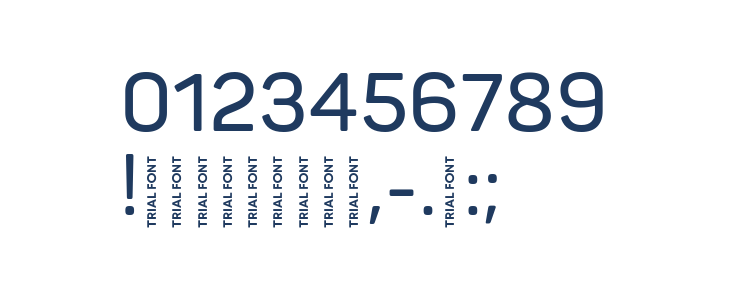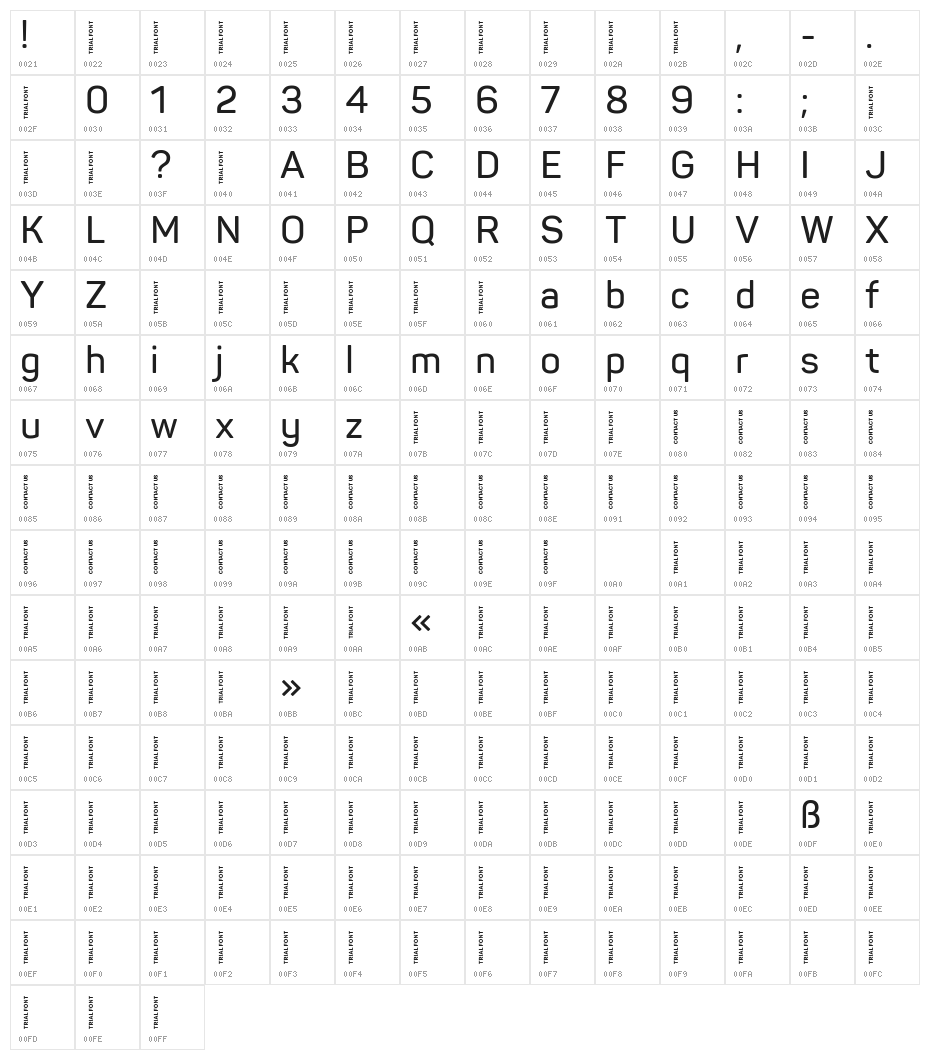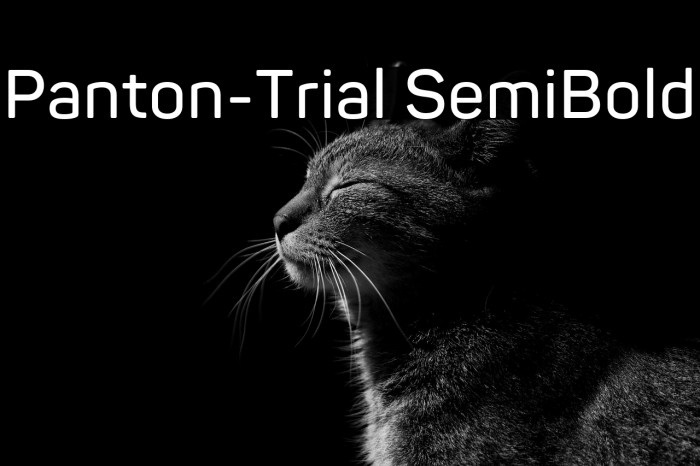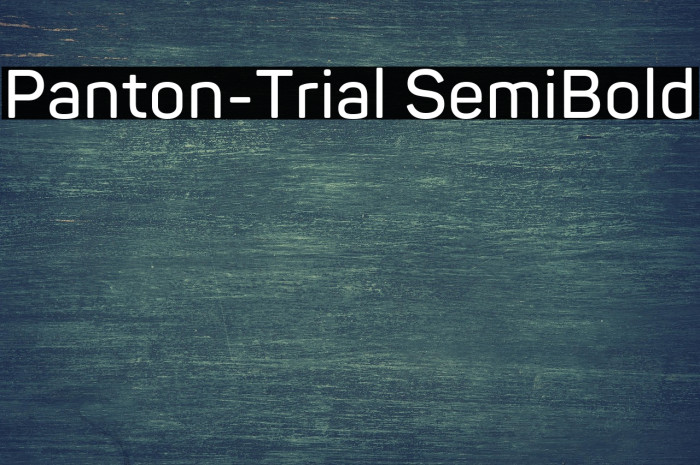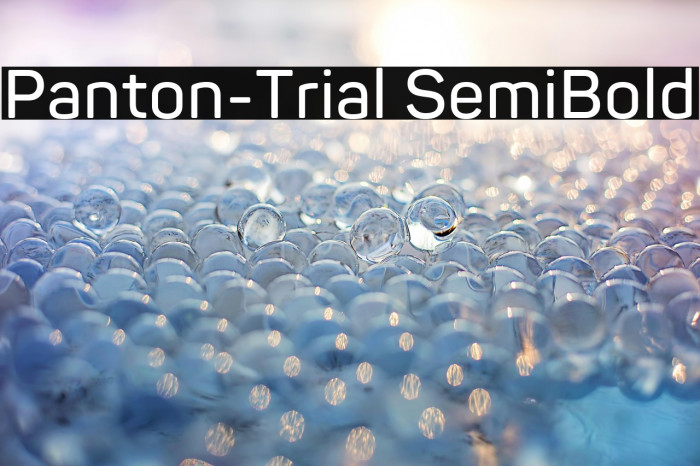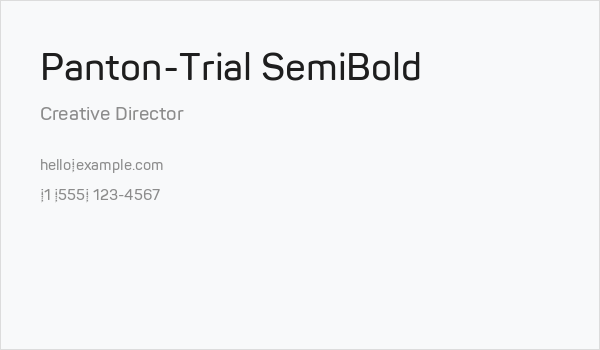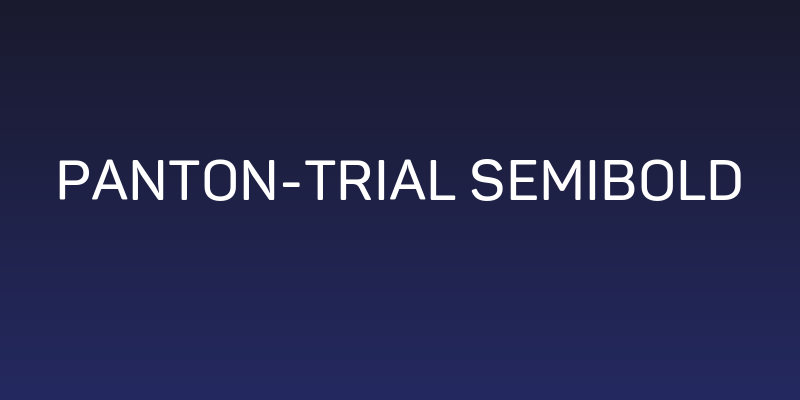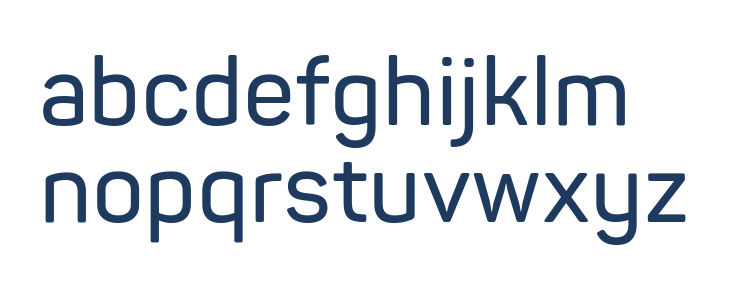
Panton-Trial SemiBold Font
Panton-Trial SemiBold Description
This font features a clean and modern sans-serif style with smooth, rounded edges that create a friendly and approachable appearance. The characters are well-proportioned, offering a balanced look that is both professional and versatile. The uppercase letters are bold and assertive, while the lowercase letters maintain a consistent flow, enhancing readability. The numerals are clear and distinct, making them suitable for various applications. Special characters are included, maintaining the overall aesthetic of the font. Its semi-bold weight provides a strong presence without being overwhelming, making it ideal for both digital and print media.
| Proposed Projects | Ideal for branding, web design, advertising, and editorial projects where a modern and approachable look is desired. |